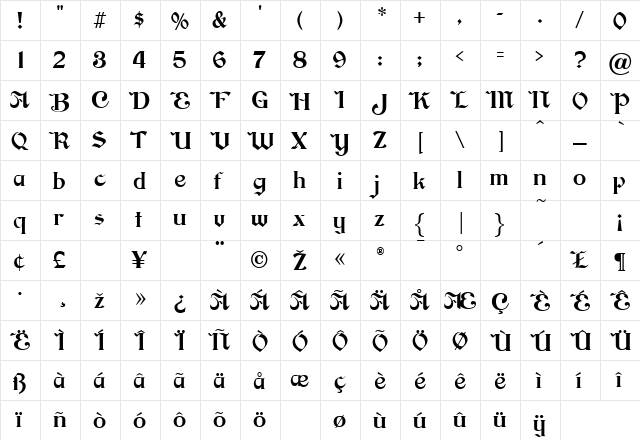
Brinkman Regular
Design Context for Brinkman Typeface
Brinkman is a composed and adaptable typeface that performs quietly and consistently across a wide range of design contexts.